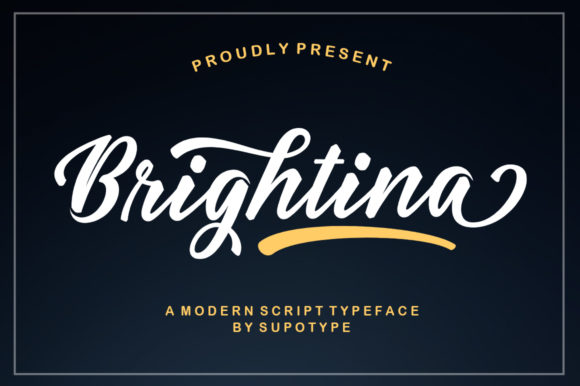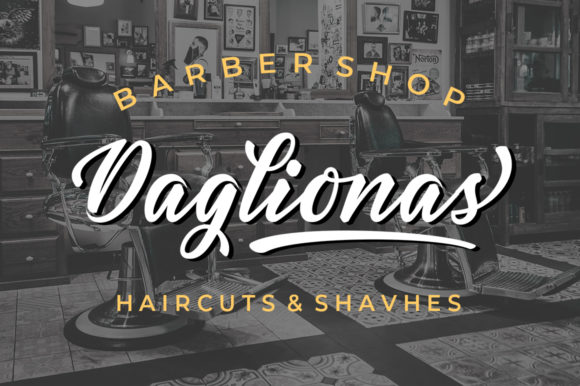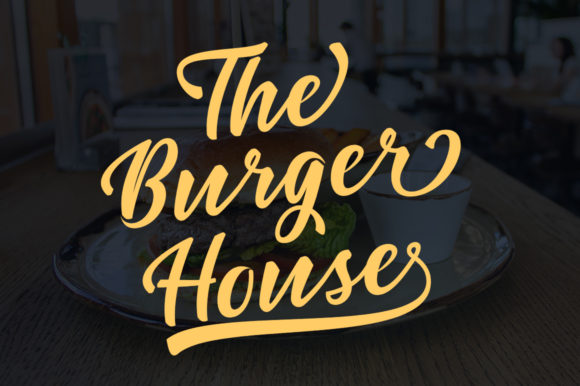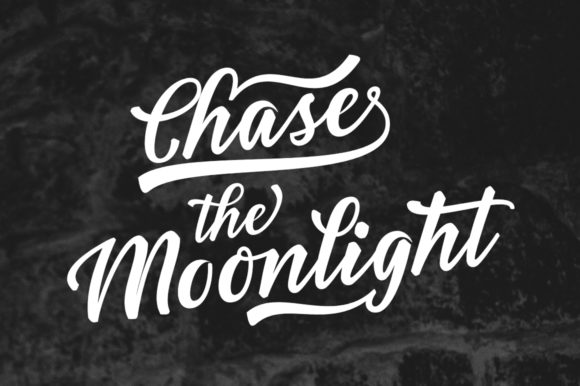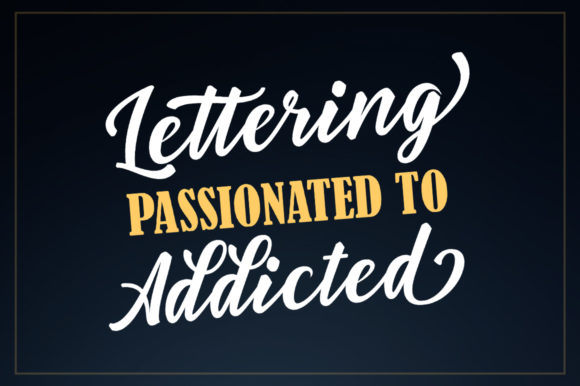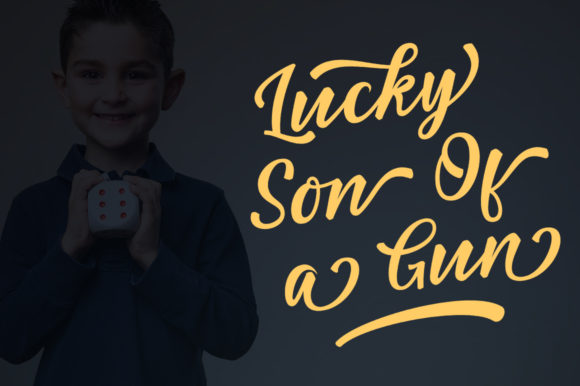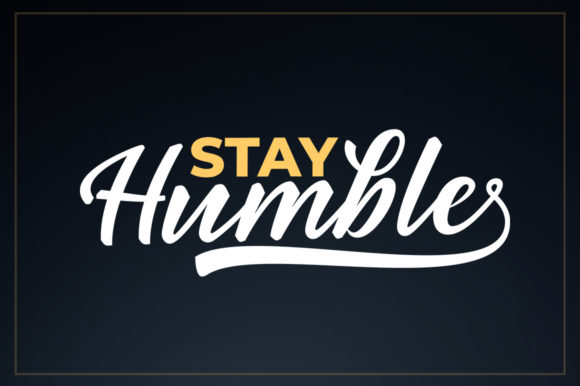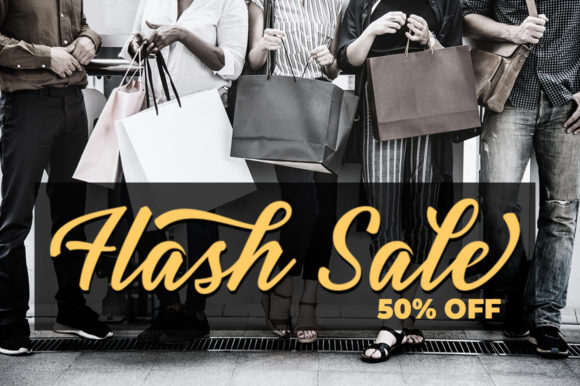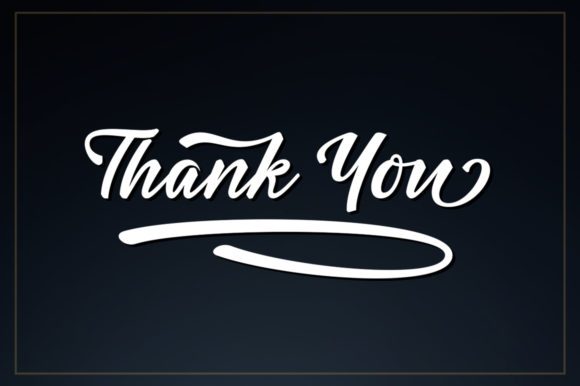
Brightina Script Font
About Brightina Script Font
Brightina Script is a fun and cute handwritten font with a lot of personality. Fall in love with its timeless charm.